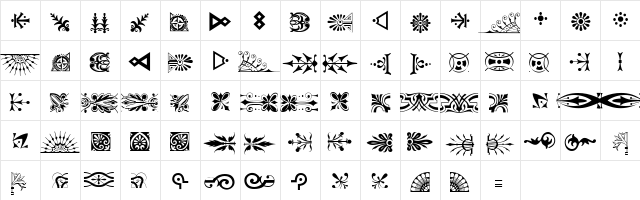
P22Victorian Regular Font Preview
P22Victorian Regular
P22Victorian Regular Font Details
Design Context for P22Victorian Typeface
P22Victorian is a composed and adaptable typeface that performs quietly and consistently across a wide range of design contexts.